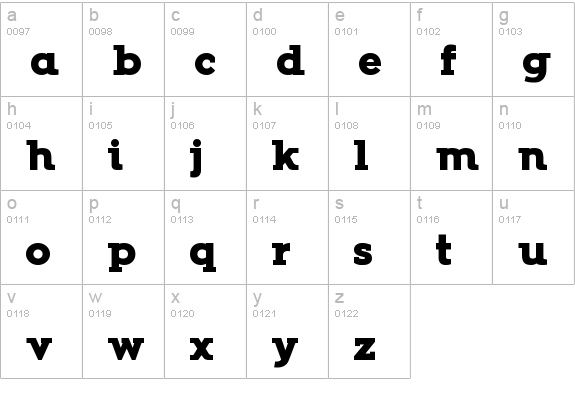
Zona Black Slab Black is a maximum-weight, dramatic variant in the Zona typeface family \xE2\x80\x94 well suited to maximum-impact headlines, posters, and packaging.
Zona Black Slab Black font is a bold and contemporary typeface that exudes strength and elegance. With its clean lines and sharp edges, this font is perfect for making a bold statement in your design projects. The striking black color adds a touch of sophistication and modernity to any layout. Best of all, Zona Black Slab Black font is available for free download at FontsMarket.com. Whether you're working on a branding project, poster design, or website layout, this versatile font will surely elevate your work to the next level. Embrace the power and style of Zona Black Slab Black font today and make a lasting impression with your designs.